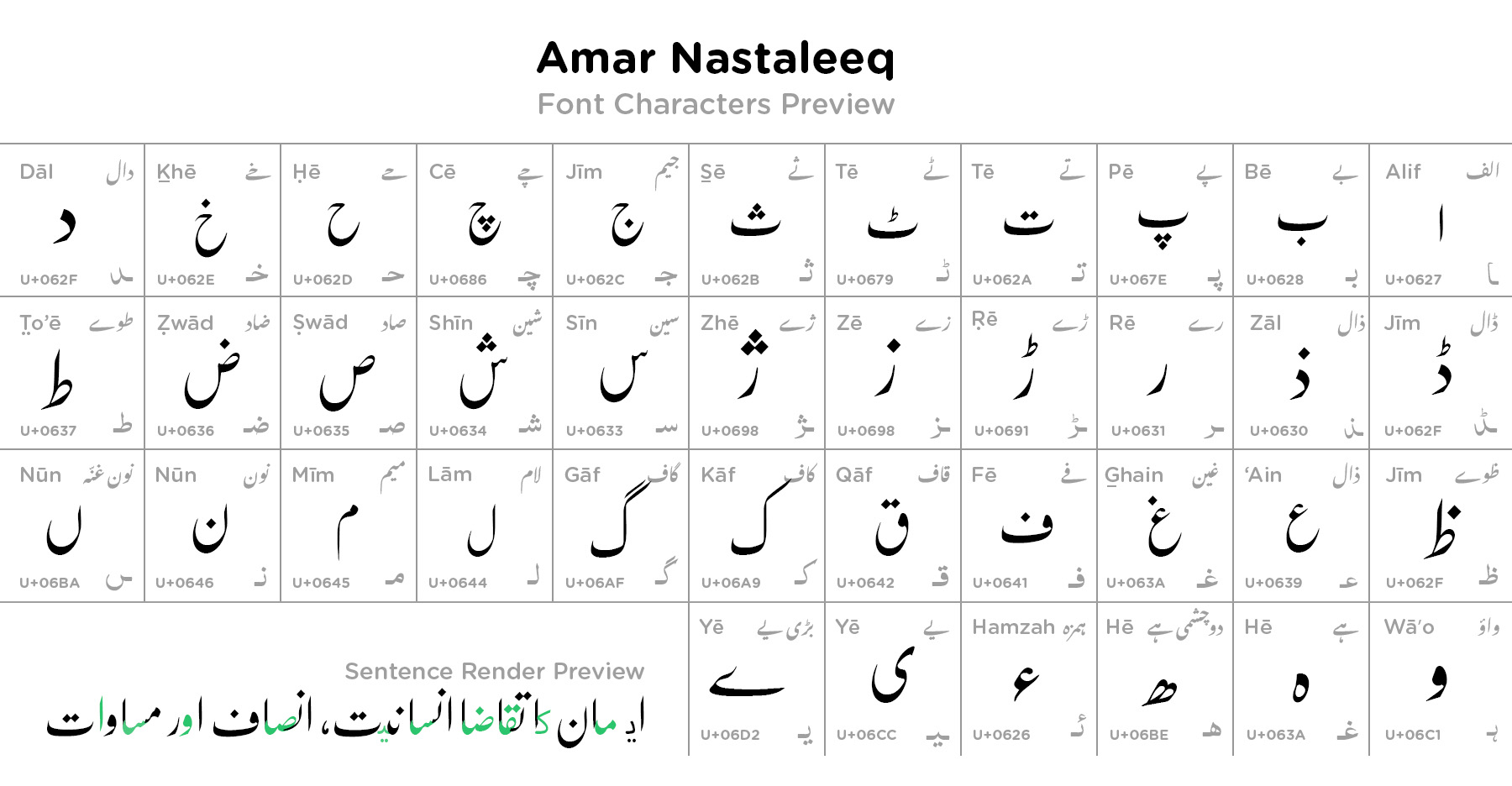
Amar Nastaleeq is an elegant Urdu font that has evolved from Nafees Nastaleeq and was refined by the Center for Language Engineering in Lahore. Developers rearranged glyphs and Arabic diacritics, excluding most orthographic ligatures. It contains 1006 beautifully designed characters, and an extensive glyph count to fulfill your various design needs effortlessly. Font designers Amar Fayaz Buriro and Saima Asghar engineered this font and released it in 2013. It was initially used exclusively by the Jang Group of Newspapers, but it later became freely accessible after 18 months. Inspired by the elegant Nastaliq script, it features elongated letters and a subtle slant but keeps things clean and readable for digital use.
Given its design elements, this font has a solid stroke with a dynamic thickness that changes at every curve and corner, adding visual interest to the text. The font maintains high screen legibility, making it perfect for various applications. However, due to its formal appearance, it is preferably used to draft official documents, books and newspapers, advertising and branding, and more. Amar Nastaleeq is a practical as well as versatile font that supports various languages, including Arabic, Sindhi, Persian, Urdu, and Turkish, making it useful for different multilingual projects. Moreover, it supports various trending Unicode blocks such as Basic Latin, Letterlike Symbols, and Currency Symbols for a diverse typographic experience. Download it for free and let its mesmerizing stokes glorify your Urdu text digitally.